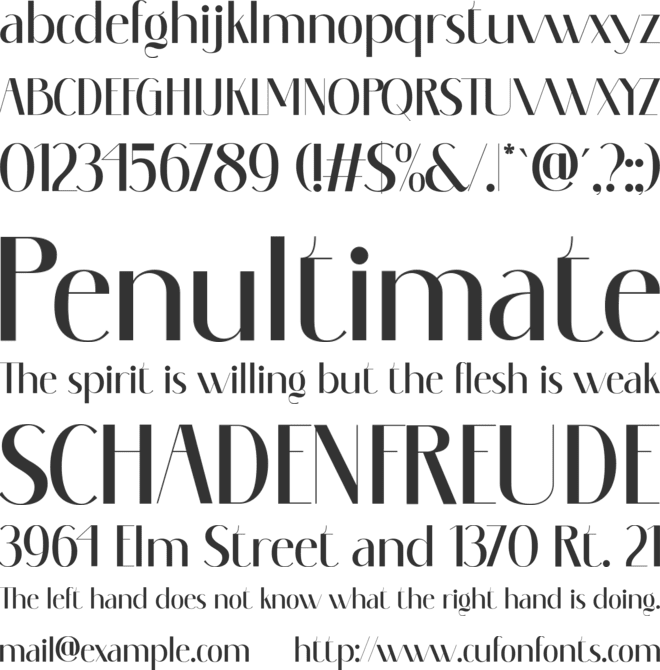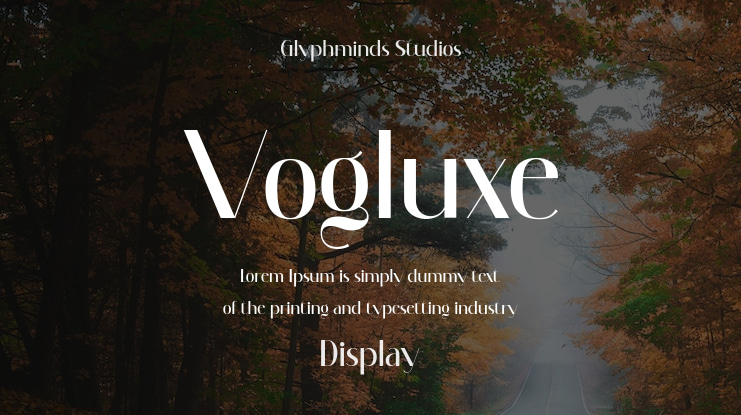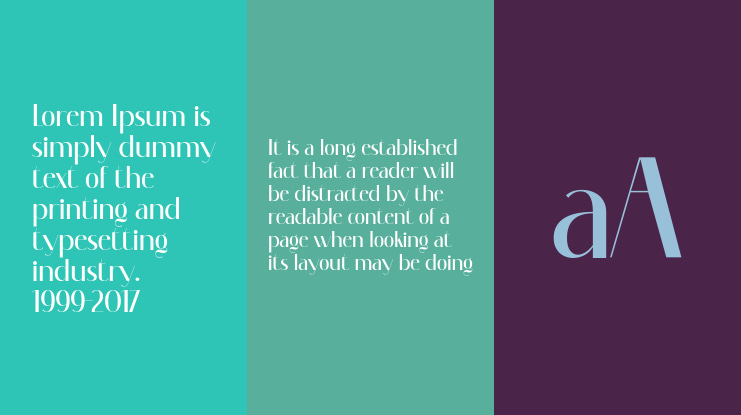
Discover the perfect blend of elegance and modernity with Vogluxe, a premium font duo by Glyphminds Studios. This stunning font combination features a sleek sans-serif typeface paired with a chic script font, ideal for adding a touch of luxury to your design projects. Whether you're working on branding, invitations, logos, or social media graphics, Vogluxe provides the versatility and sophistication you need to make your designs stand out. Elevate your creative work with the timeless appeal of Vogluxe today